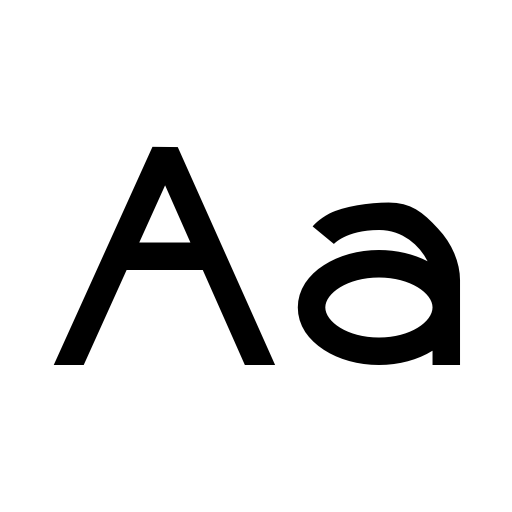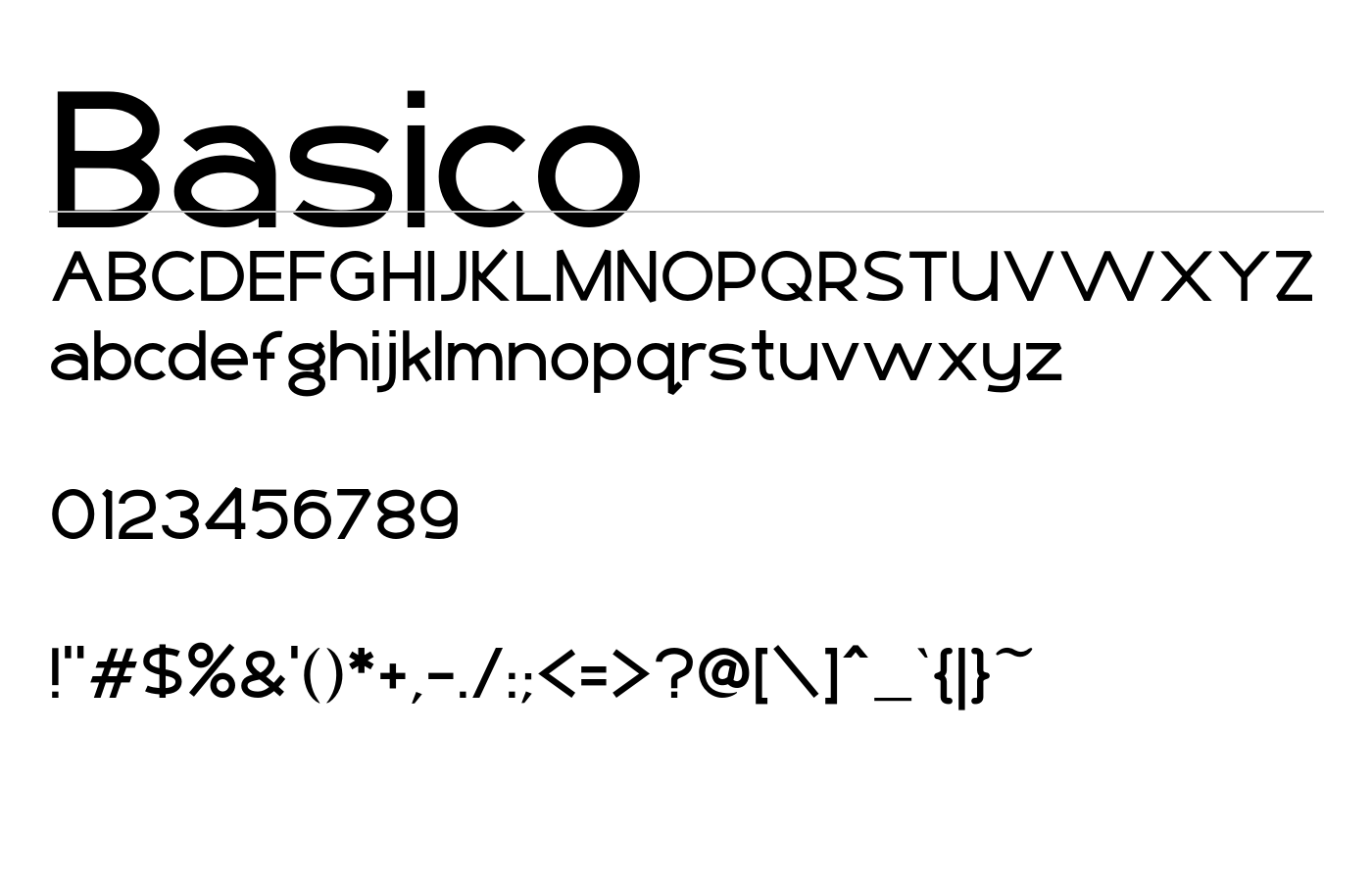
Basico is a clean, modern sans serif font characterized by its geometric shapes, balanced proportions, and subtle elegance. With a medium weight and an even stroke contrast, it offers excellent readability and a friendly but professional feel, making it well-suited for both editorial and branding uses. Its simple, versatile style makes it ideal for websites, logos, headlines, and body text where clarity and contemporary aesthetics are important.
Basico Font
About Basico Font
| Font family | Basico Font |